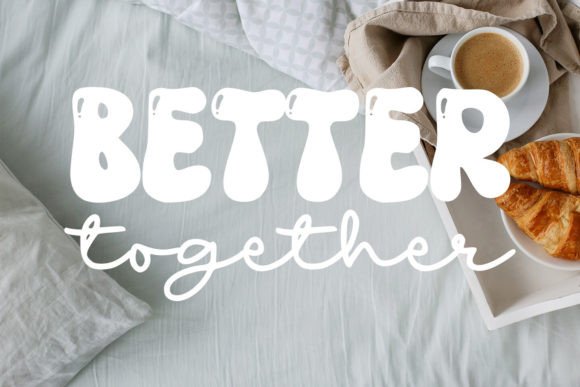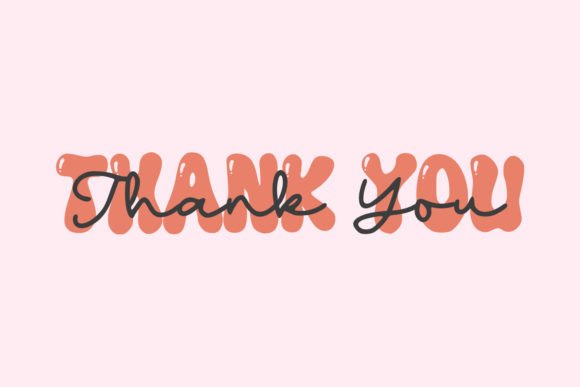
Sunny Rainbow Duo Font
SUNNY RAINBOW is a beautiful font duo.
It came in two styles, retro slab serif and script.
It is great for branding, quotes, logos, t-shirt designs, tote bag designs, cards, banners, social media, and more.